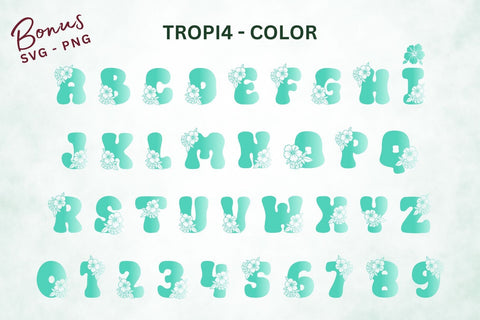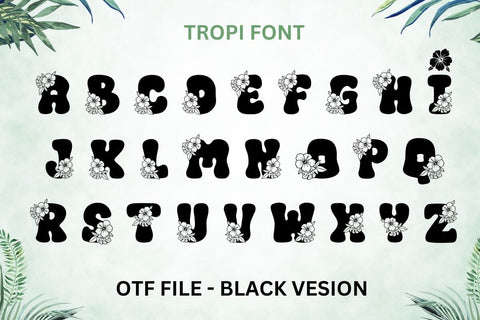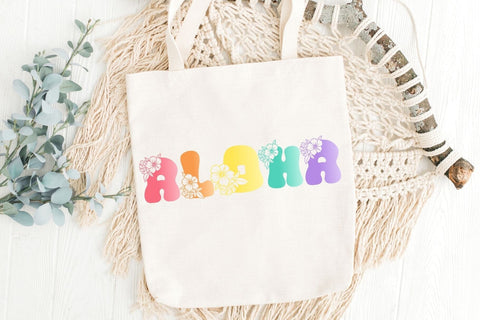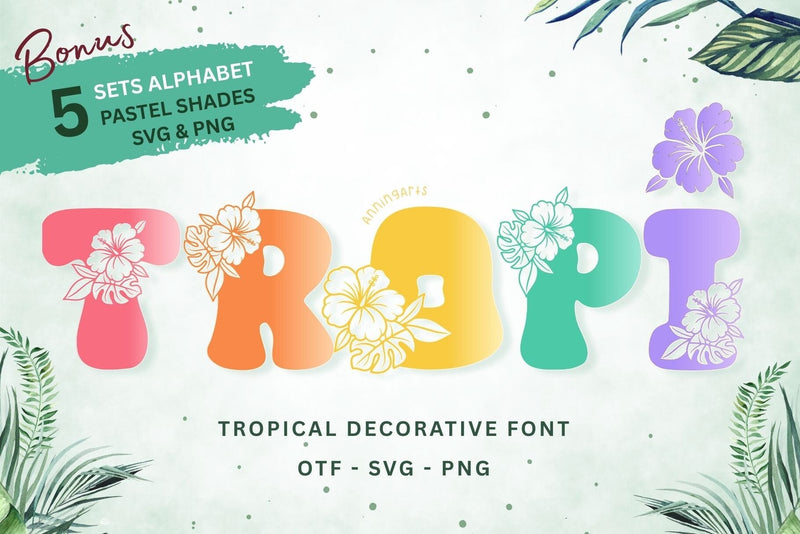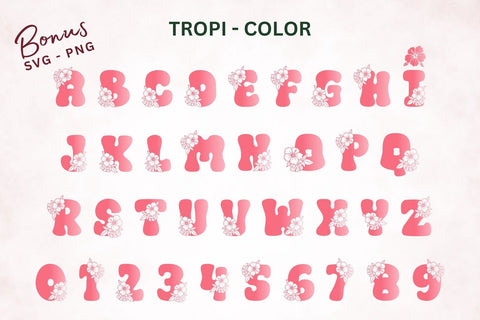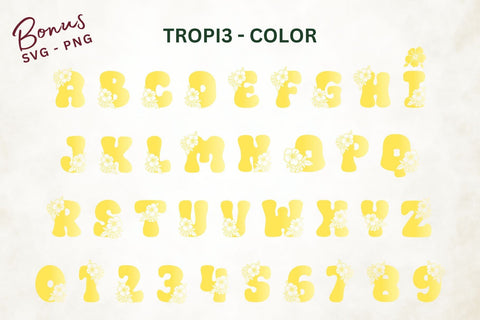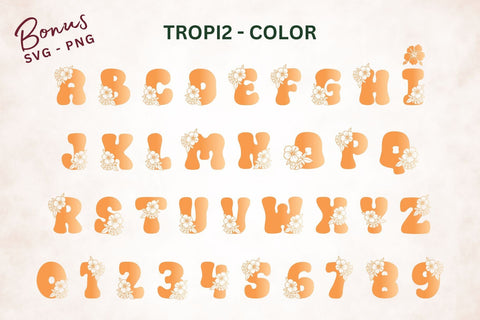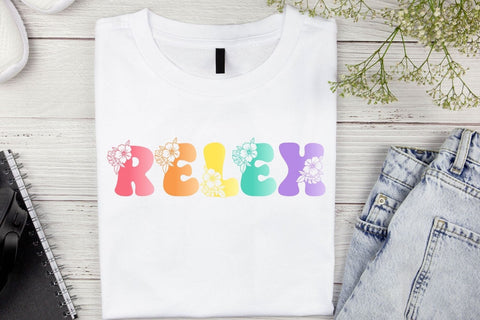
Tropi – A Fun Tropical Decorative Font with Floral Elements
Tropi is a fun and quirky decorative display font inspired by tropical vibes and summer sunshine. Each letter is uniquely adorned with hand-drawn hibiscus flowers, making it perfect for summer-themed projects, beach party invitations, resort branding, SVG crafts, and kids’ apparel.